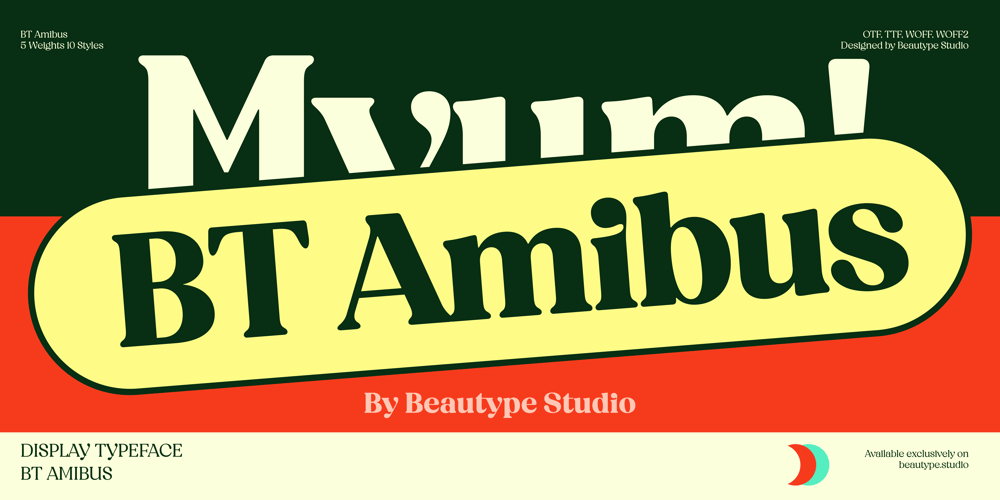
BT Amibus
BT Amibus font
BT Amibus Font Family was designed by published by BeauType. BT Amibus contains 10 styles and family package options. BT Amibus is a typeface that blends a nostalgic charm with modern aesthetics, featuring smooth, rounded contours that evoke a friendly and approachable feel. The proportions of BT Amibus are meticulously adjusted for balance and readability, making it suitable for various sizes. The typeface is adorned with vibrant, bright colors that bring a lively, energetic feel, reminiscent of sweet, fresh fruits. BT Amibus is the perfect choice for designers seeking a visual language that combines a playful tone with a blend of nostalgia and modernity